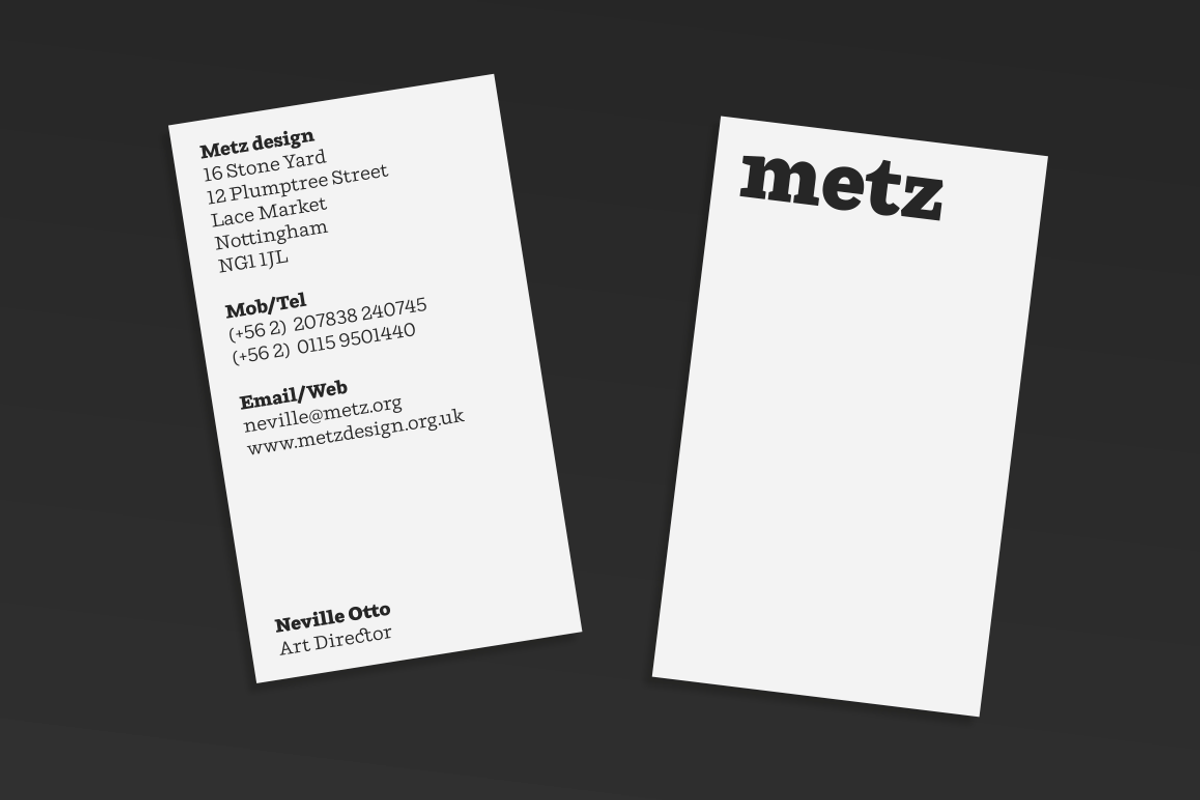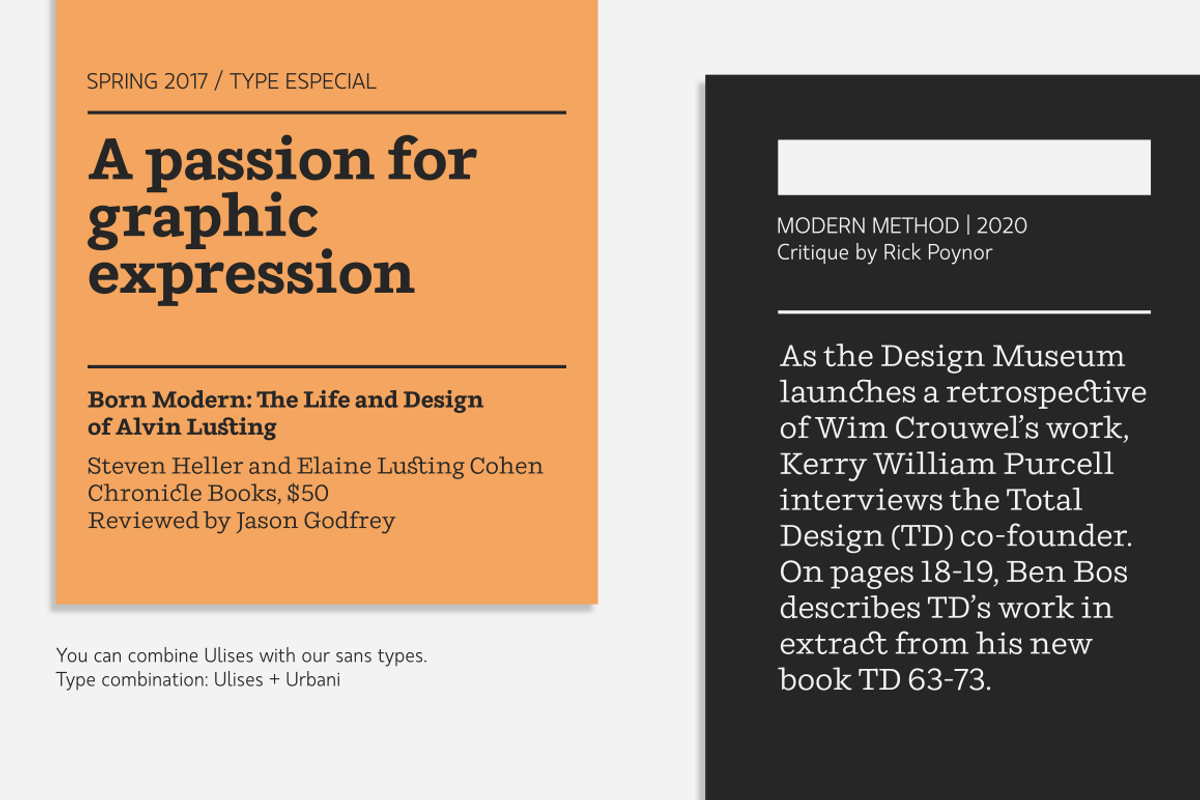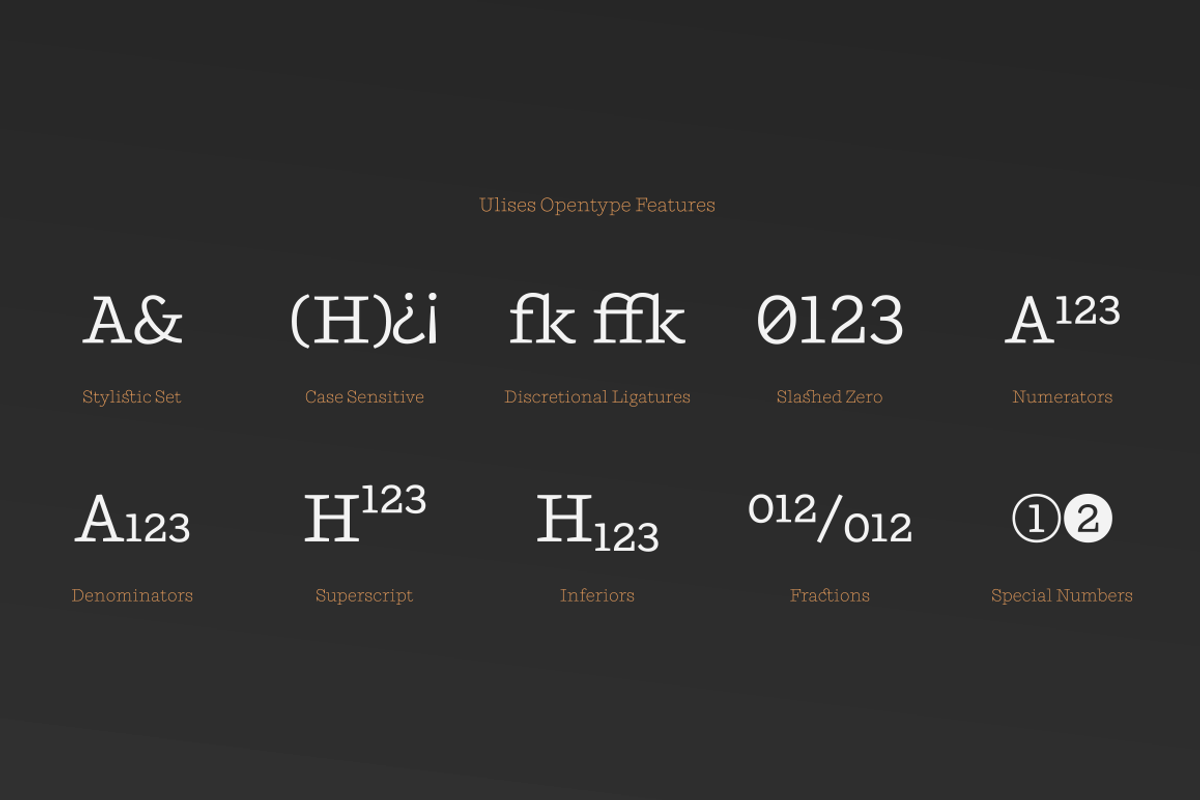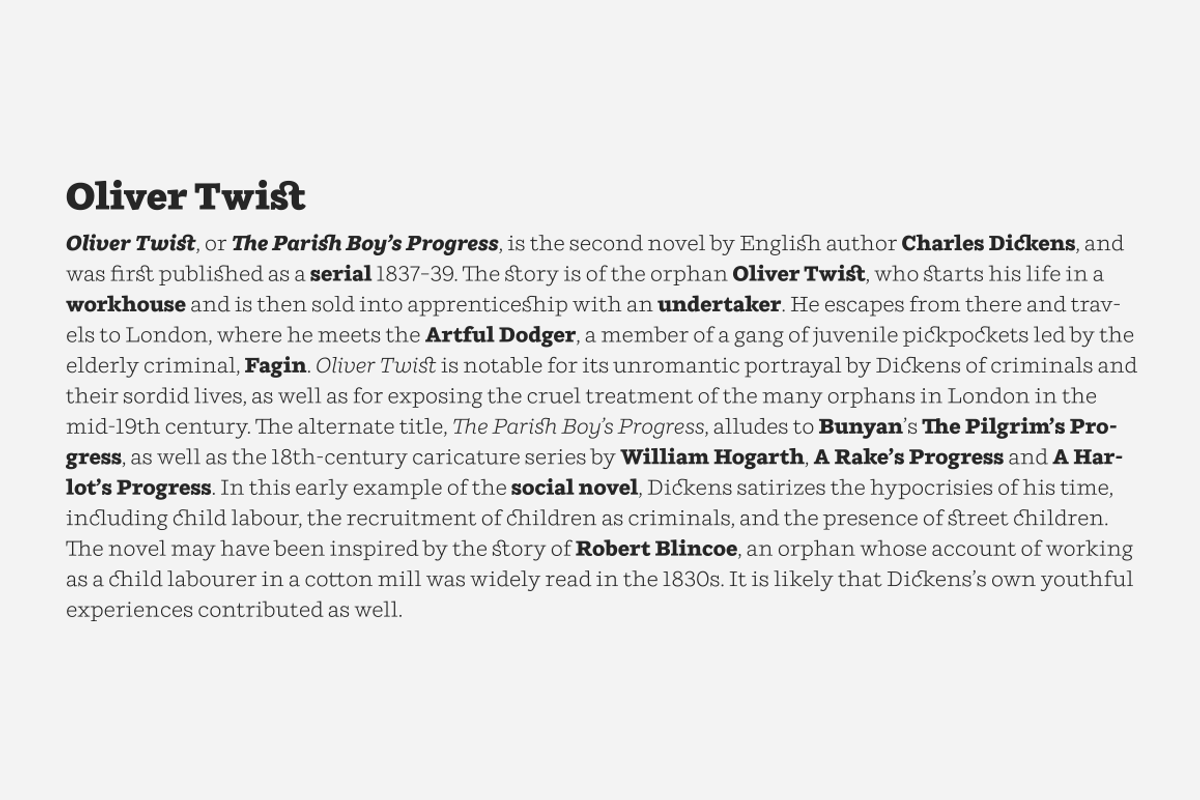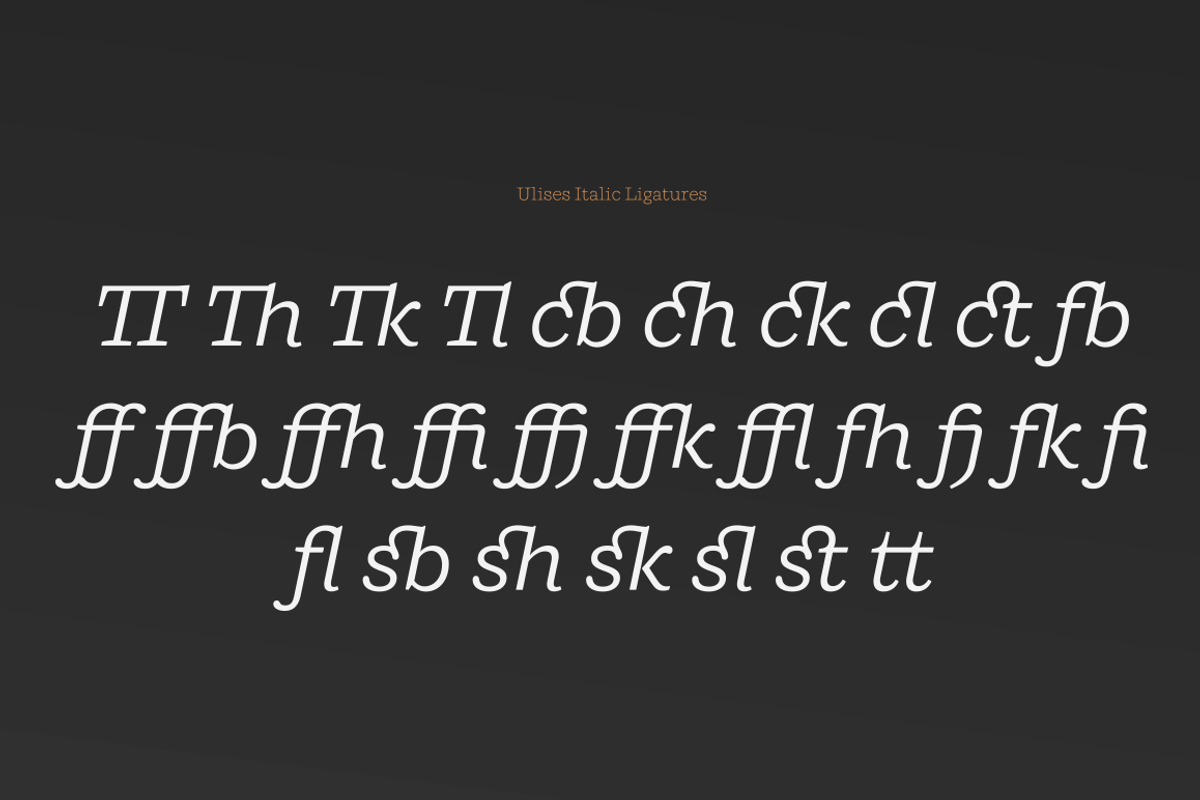
Ulises
Ulises is a modern serif typefamily that comes in 9 weights plus matching italics. Beautiful typefaces such as Shift, Brioni, Skolar and Malaga inspired this project. Our goal was to create an eclectic slab serif with some grotesques features, which provides a wider range where Ulises can be used. Therefore this typefamily is perfectly suited for headlines and small text sizes.
Ulises contains alternative glyphs, fraction, superscript, subscripts and special numbers. This project is a classical-modern serif typefamily that is ideal for graphic design, printed publications, web design, motion graphics and branding.
We’re proud to introduce: Ulises.